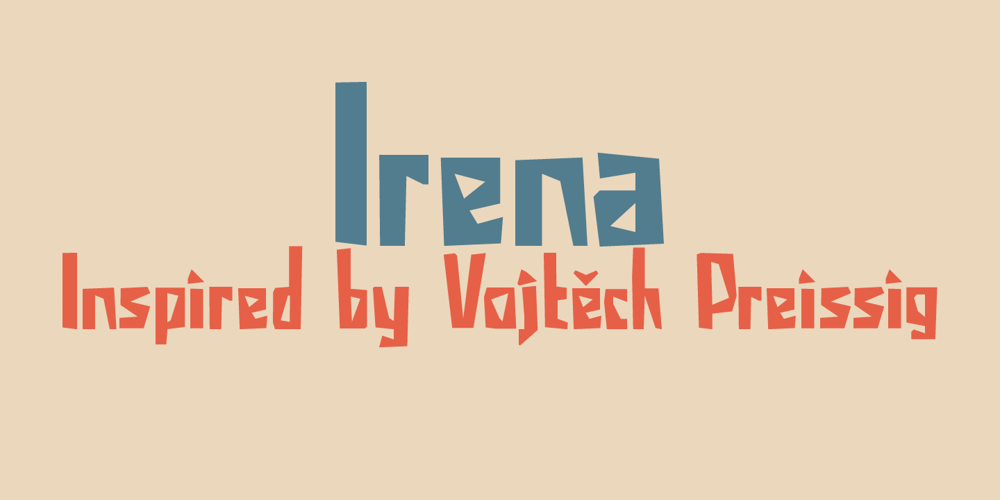
Irena Font Family was designed by Vojtěch Preissig, David Kerkhoff and published by Hanoded. Irena contains 2 styles and family package options. Irena is a cubist/expressionist font inspired by Vojtěch Preissig. Preissig (1873-1944) was a Czech typographer, printmaker, illustrator and teacher, whose work was influenced by Japanese Art and Symbolism. During WWII, Preissig supported the Czech resistance and he was arrested in 1940. He died on June 11th in Dachau concentration camp. This font was named after his daughter Irena Bernášková. The Irena font is angular and square(ish), yet easy to read. It comes with extensive language support.